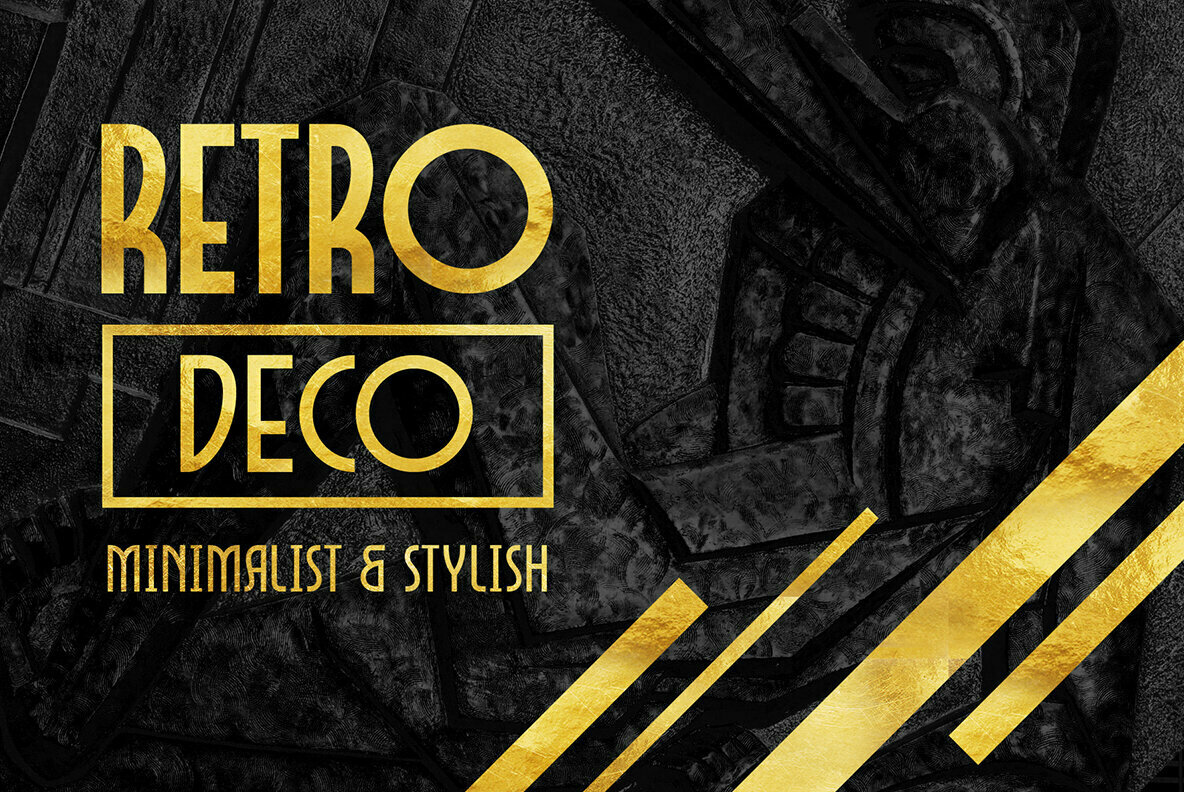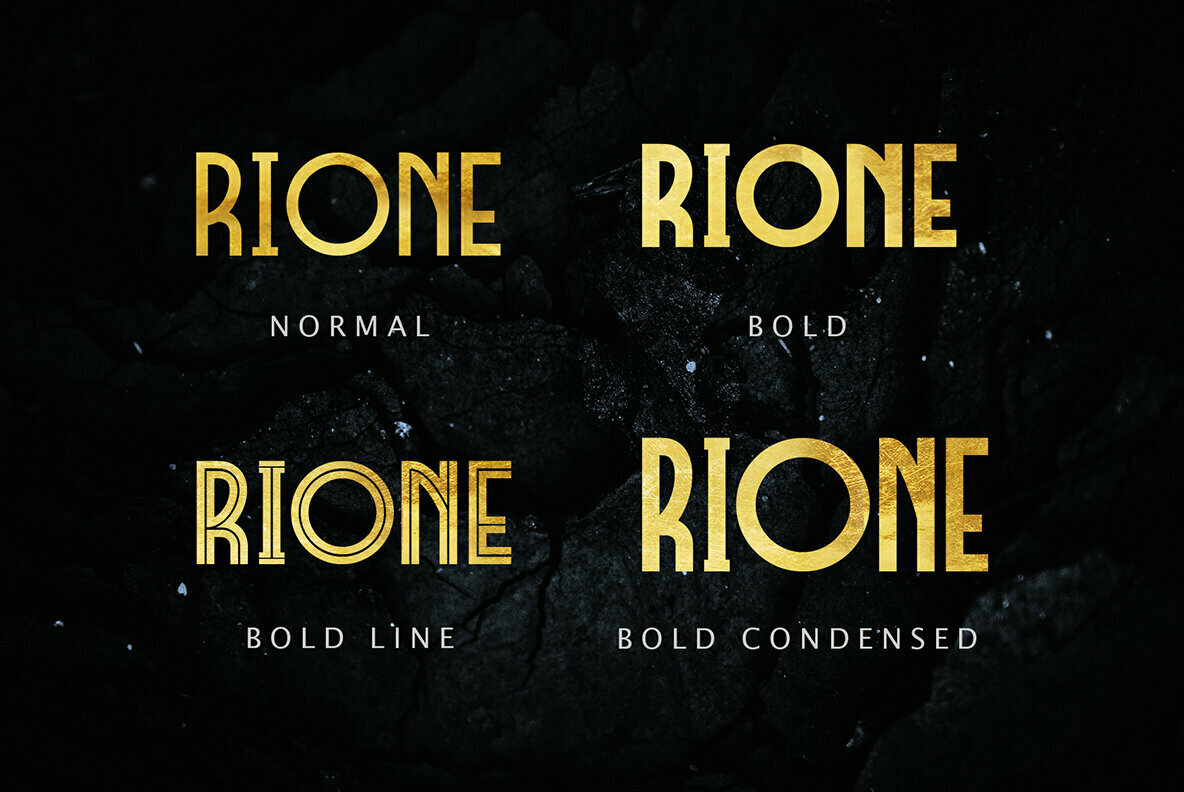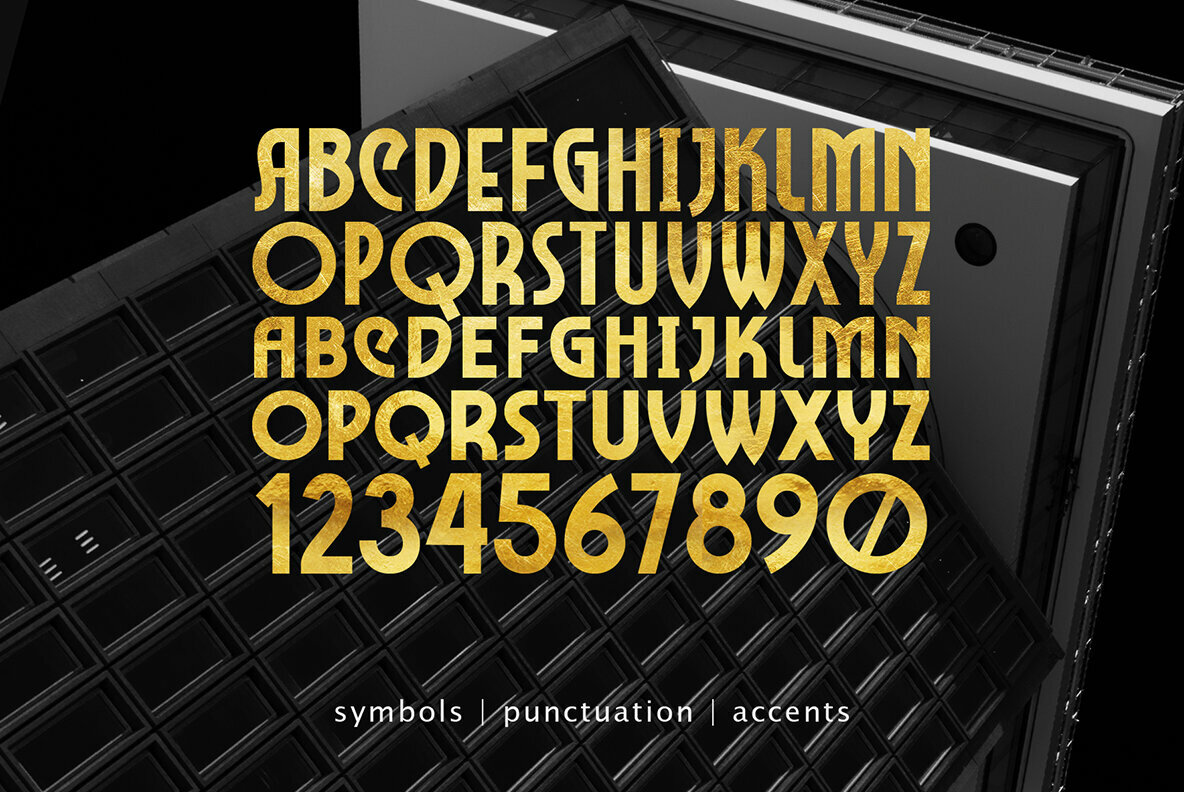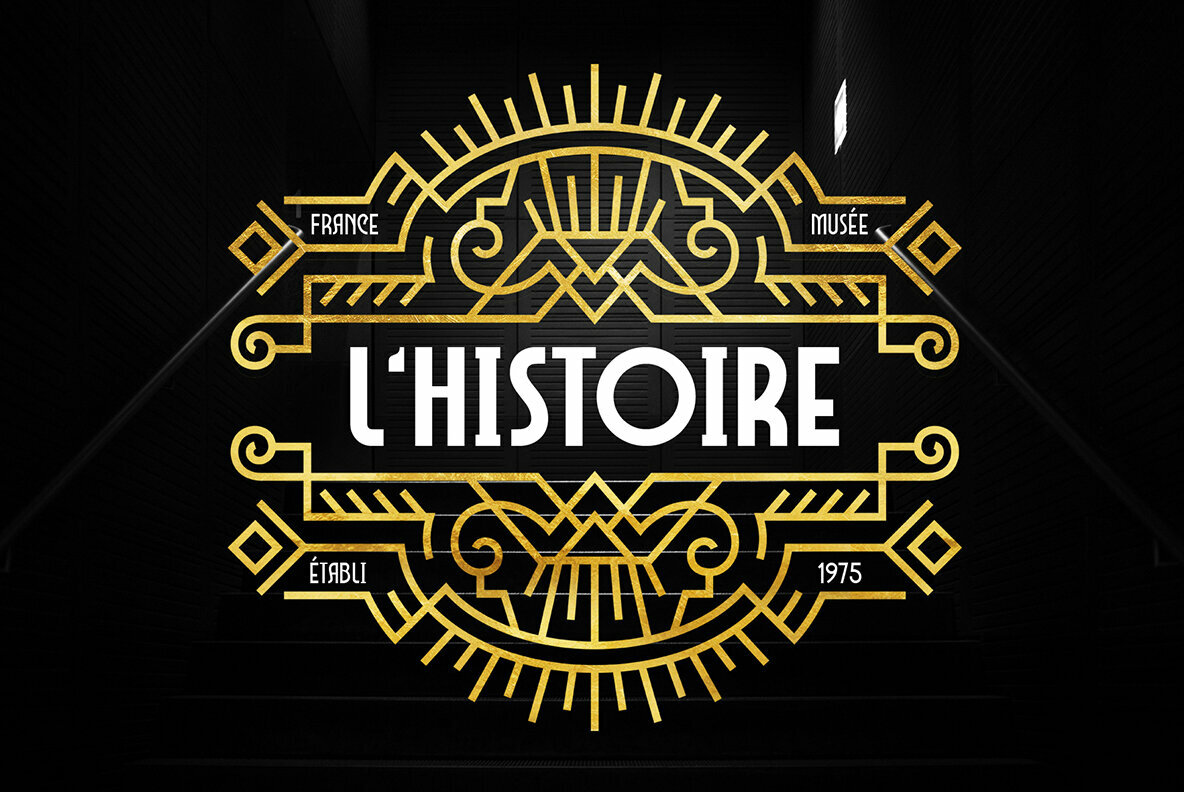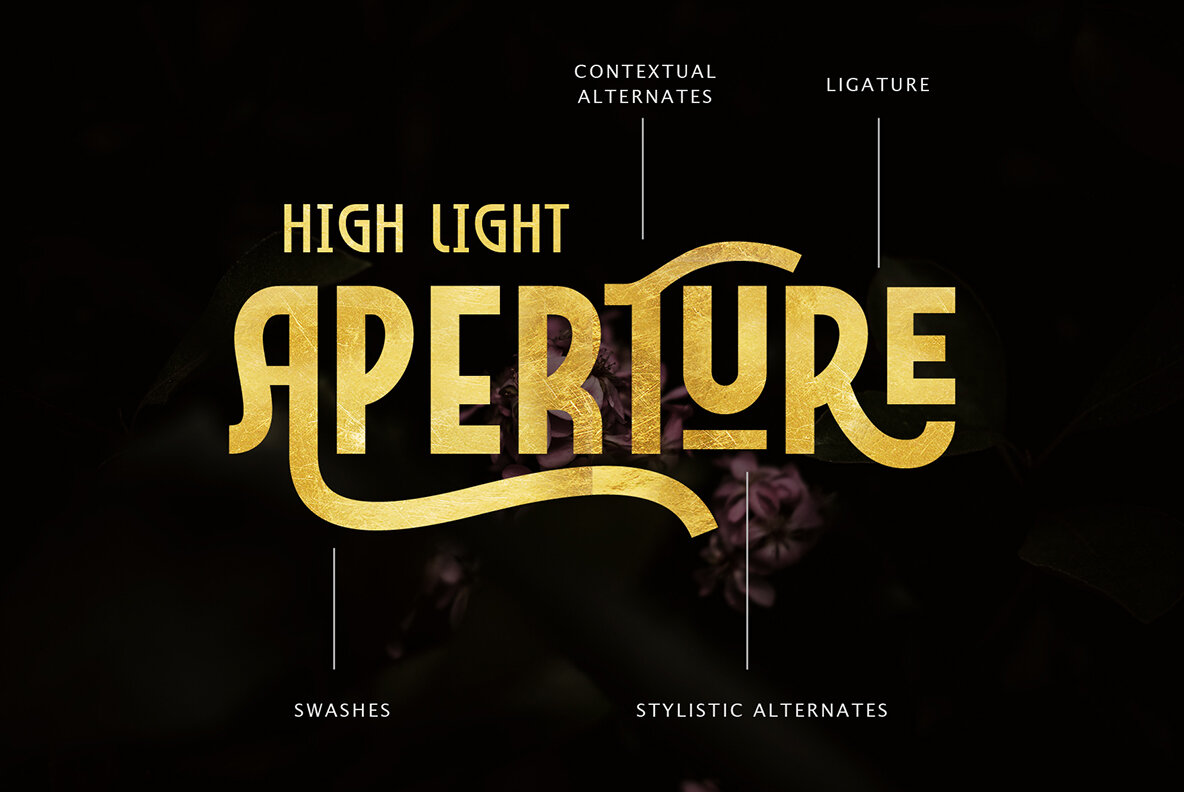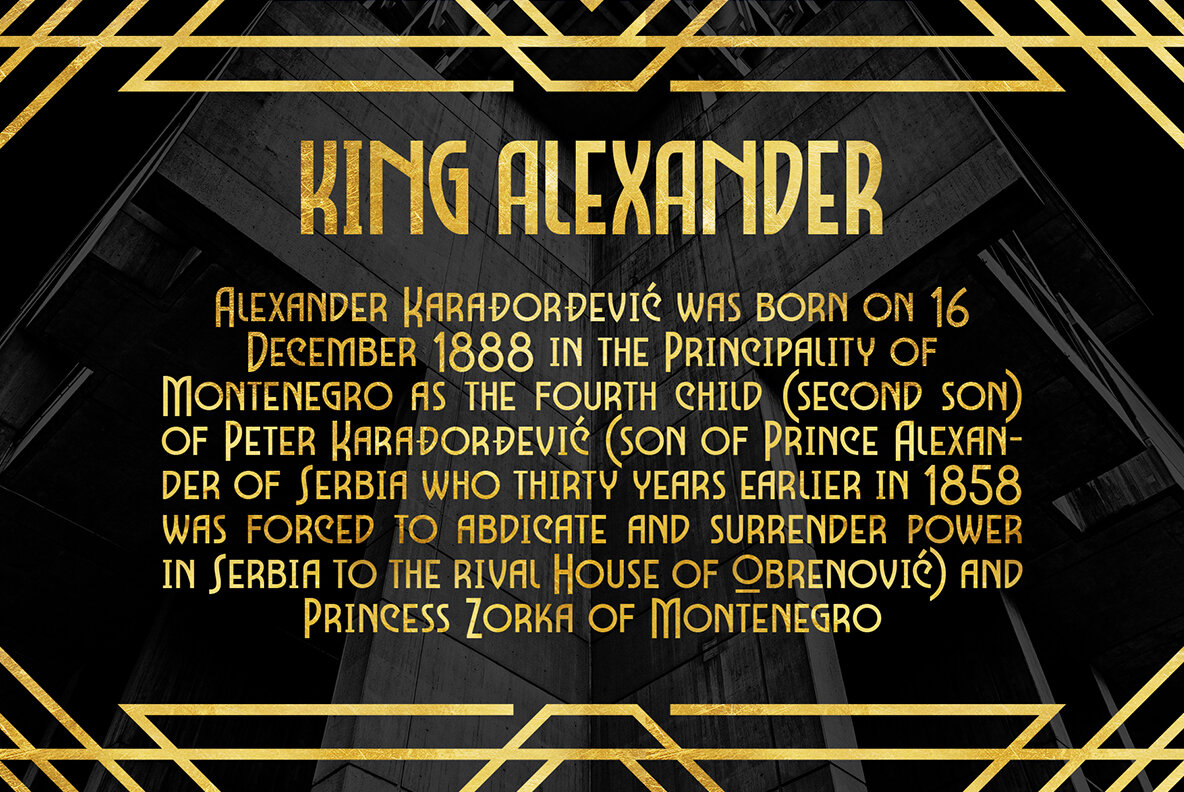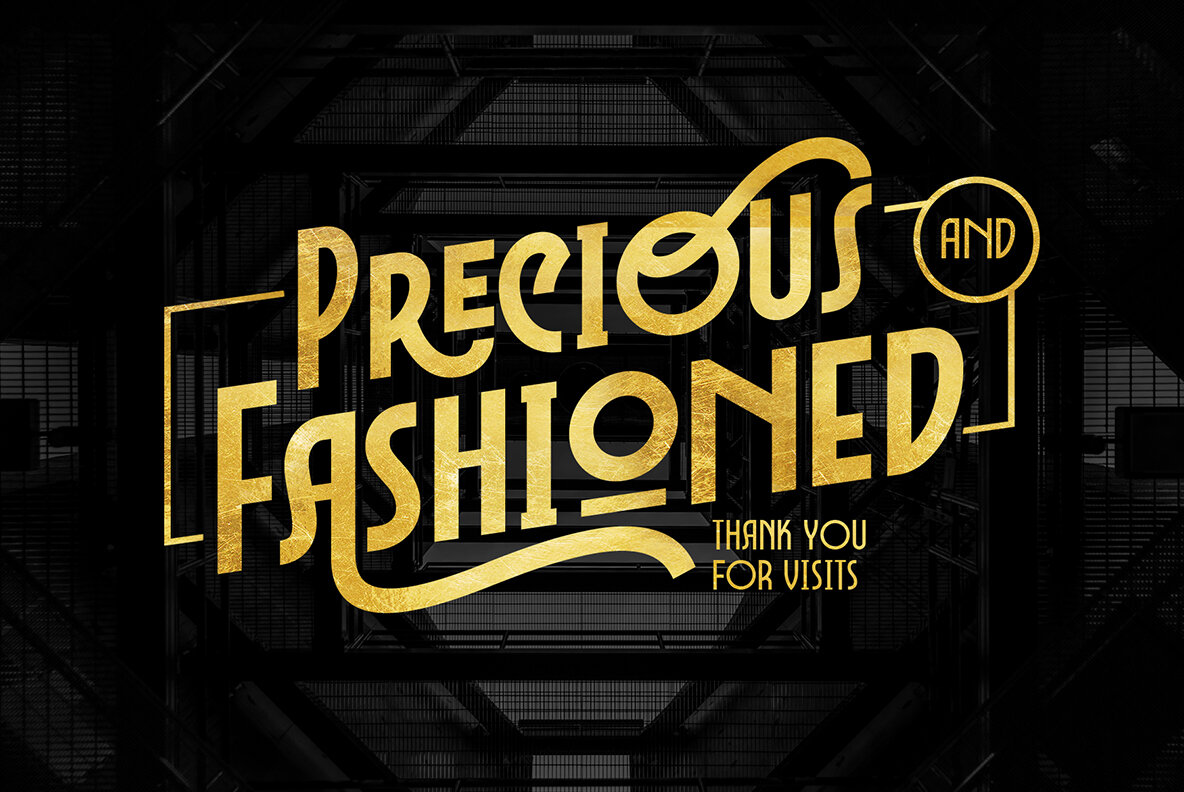
Marcheile Font
Marcheile, crafted by Ahmad Ramzi Fahruddin, draws inspiration from the iconic Gatsby era and rich vintage style. This all-caps display font seamlessly blends art deco influences with a retro flair, offering a luxurious and clean design suited for diverse creative projects. Its solid structure makes it an excellent choice for enhancing your design work. Marcheile is equipped with OpenType features, providing an array of alternatives to fuel your creativity. With an assortment of ligatures, numerous alternates, and 18 accents, this font becomes an ideal partner for headlines, editorials, logotypes, and impactful quotes. Each element of Marcheile is thoughtfully crafted to bring sophistication and style to your typography, making it a versatile choice for those seeking elegance in design.Marcheile: Display Font Inspired by Gatsby and Vintage Aesthetics